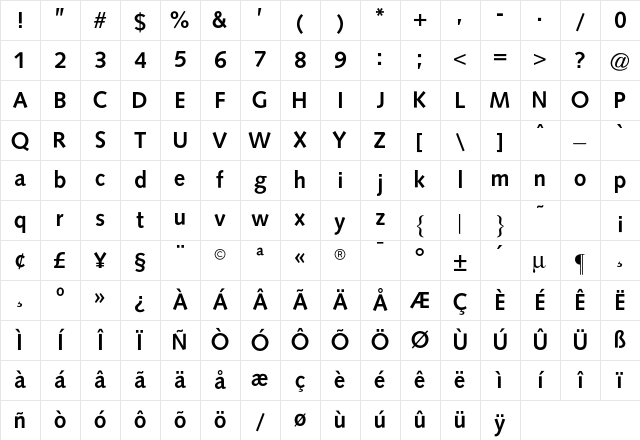
Complete OPTISintax Bold glyph index. Displaying only characters natively supported by OPTISintax Bold font.
OPTISintax is a composed and adaptable typeface that performs quietly and consistently across a wide range of design contexts. Its bold stroke weight gives it real presence on the page.
Pro Tip: Use OPTISintax in both headline and body roles to test its range before committing to a single application.